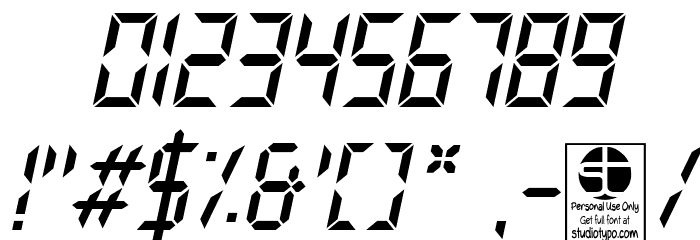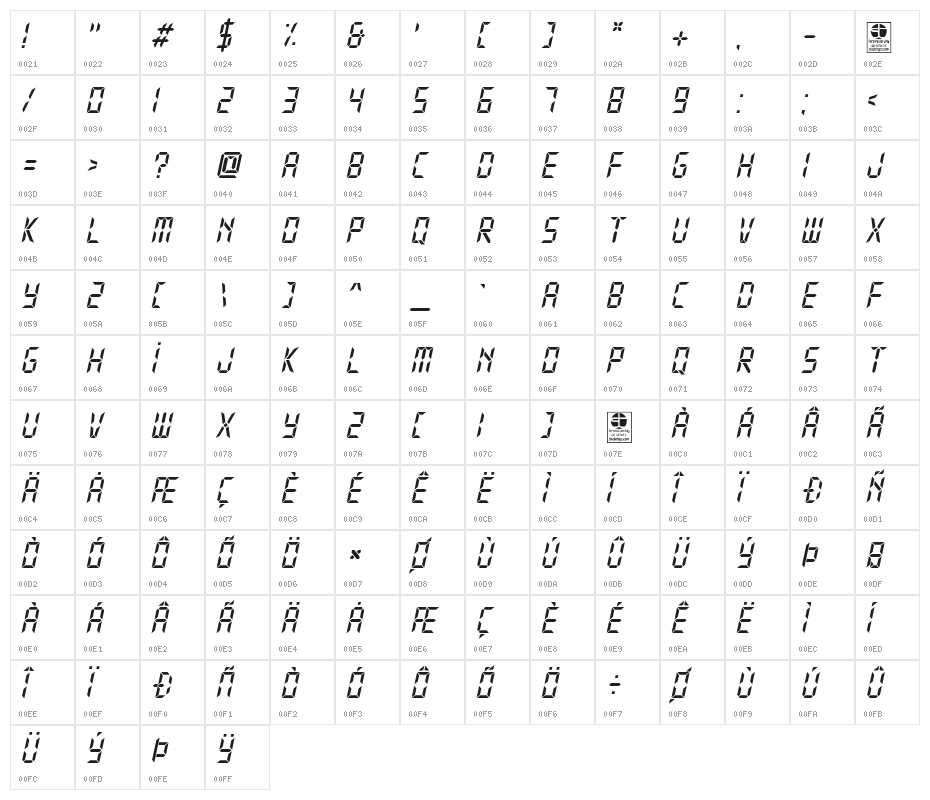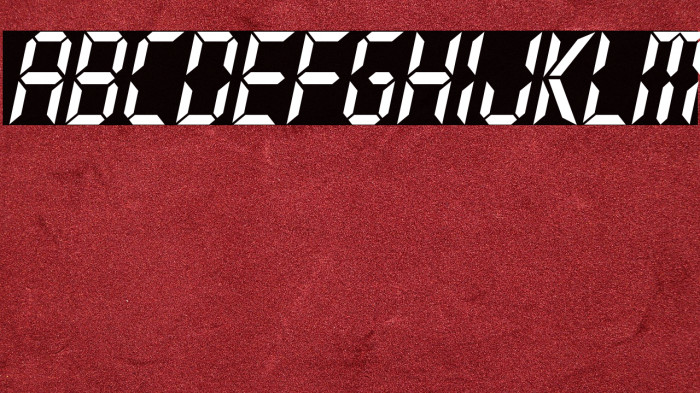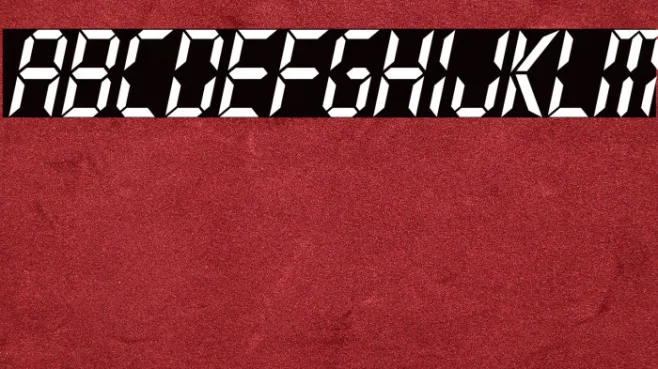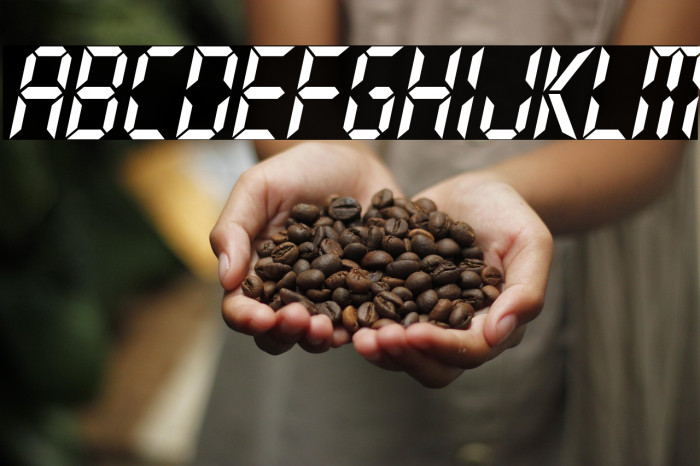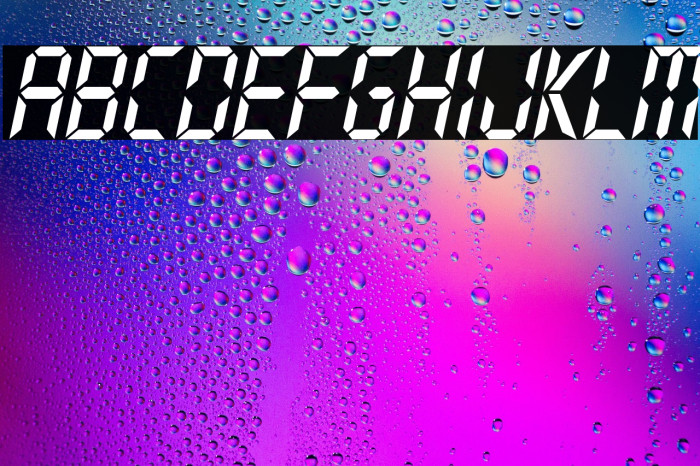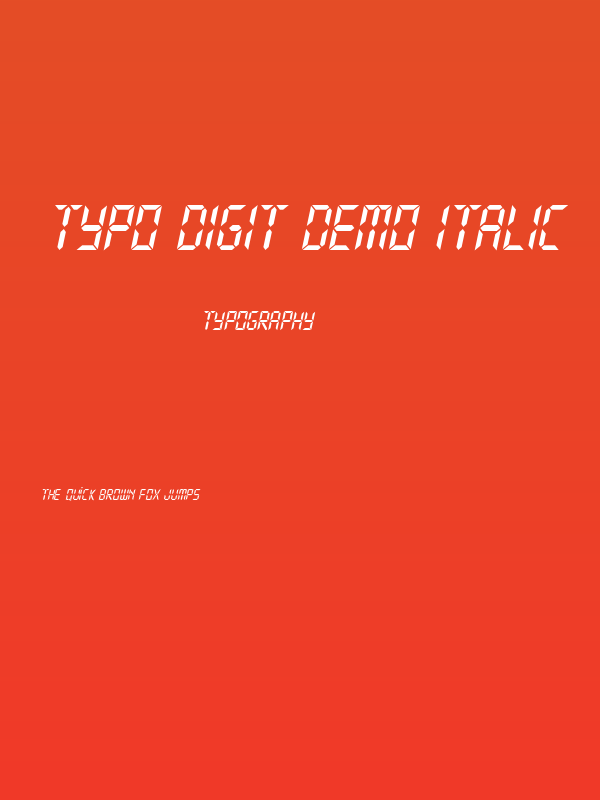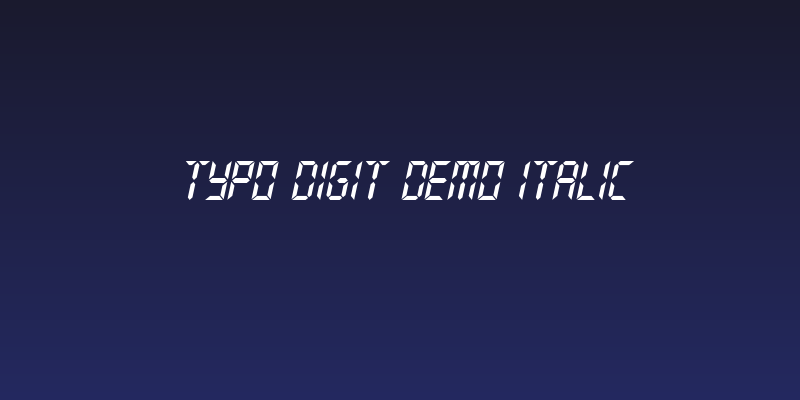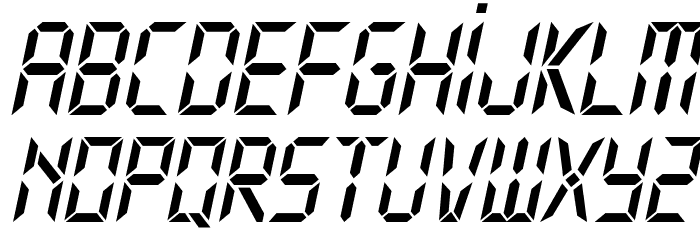
Typo Digit Demo Italic Font
Typo Digit Demo Italic Description
This font features a distinct, angular design reminiscent of digital or electronic displays, with a futuristic and technical aesthetic. The characters are composed of segmented lines that mimic the appearance of LED or LCD screens, giving it a modern and digital feel. The italic style adds a dynamic and forward-leaning aspect, enhancing its sense of motion and energy. The font maintains a consistent geometric structure across all characters, ensuring uniformity and readability. It is particularly effective for conveying a sense of technology, innovation, and modernity.
| Proposed Projects | Ideal for tech-related branding, digital interfaces, futuristic posters, and electronic-themed designs. |